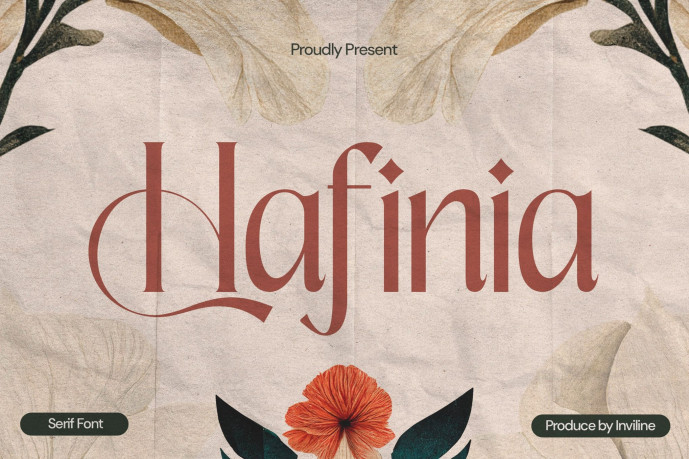
Hafinia – Elegant Serif Font
Designer: Inviline
Hafinia – Elegant Serif Font that gracefully blends classic letterforms with stylish swashes and subtle curves. Designed with sophistication and charm in mind, Hafinia exudes femininity and refinement while maintaining modern usability. With its high contrast strokes and delicate alternates, this font brings a luxurious and artistic vibe to any design project—from packaging and branding to editorials and wedding invites.
Perfect For:
• Elegant Packaging
• Wedding Stationery
• Beauty Branding
• Editorial Layouts
• Premium Labels
• Logo Design
• Quote Typography